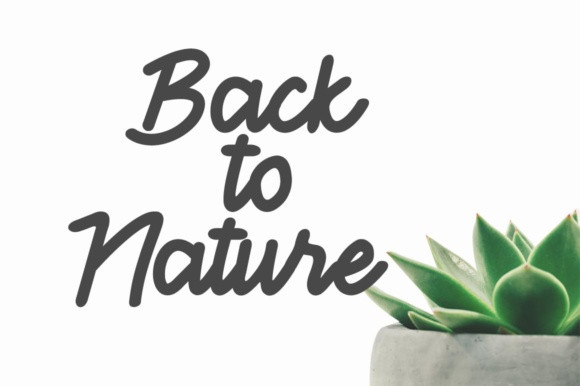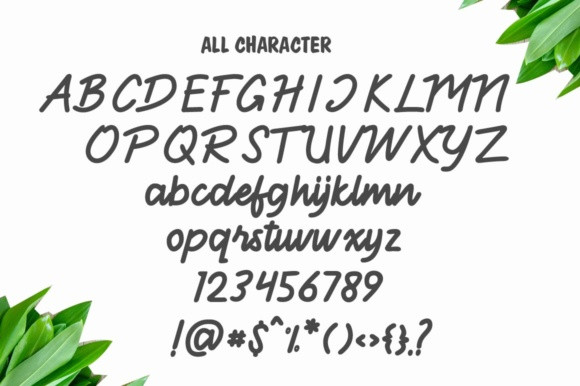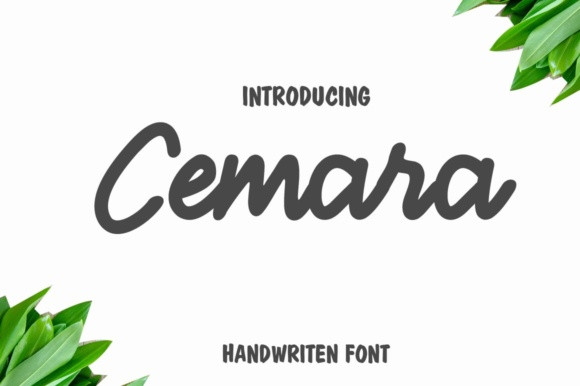
Cemara Font
Cemara is simple script font with a bold style. Cemara is perfect for logos, quotes, apparel designs, wedding invitations and much more. You can use the alternates to create your own customized lettering.